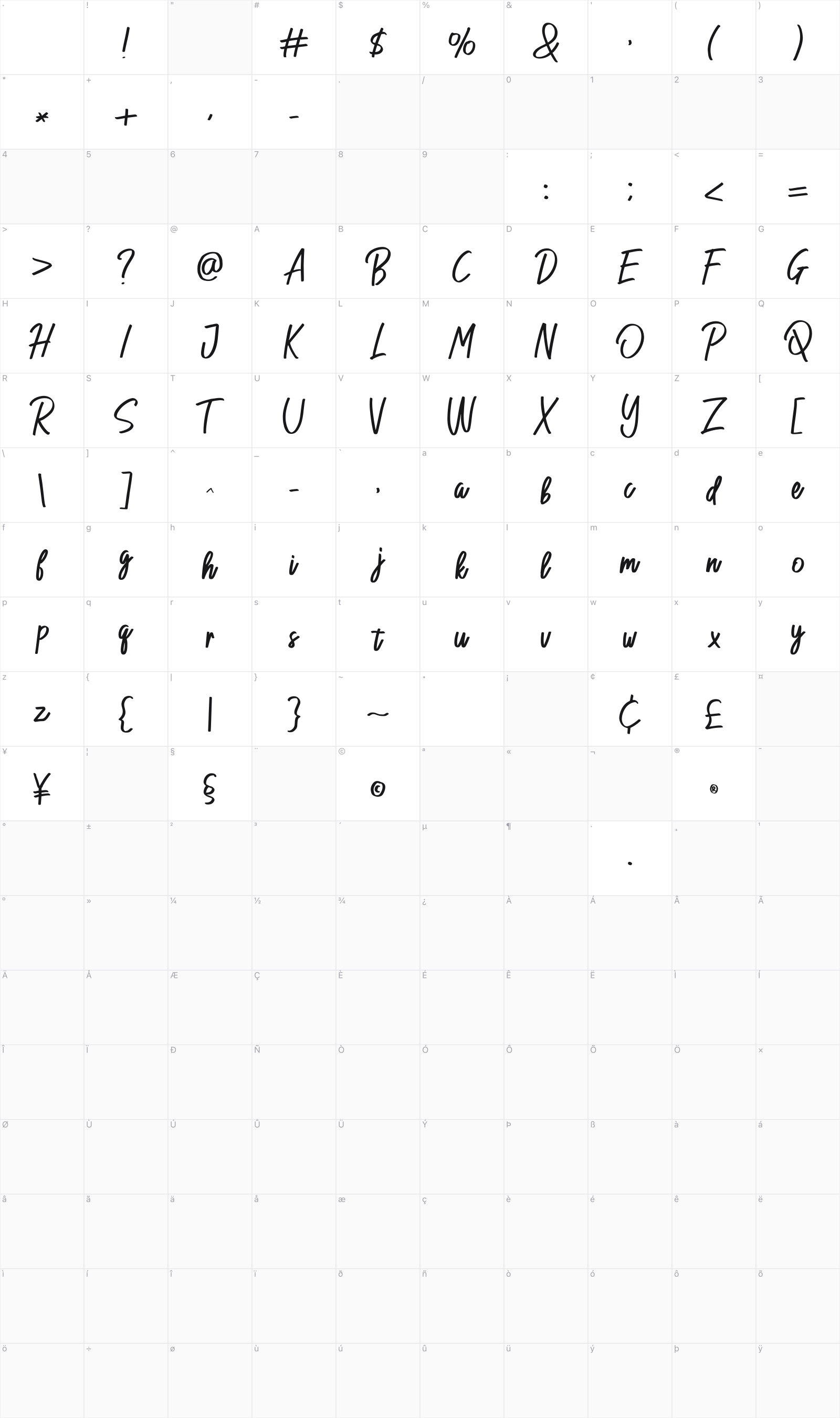
Neo Hestages
Neo Hestages is a bold brush typeface from Indotitas Squad with thick, energetic strokes that feel fast and loose, like someone swept a loaded brush across the page in one confident motion. The letterforms have a casual, handwritten quality but carry enough weight to hold their own at large sizes on posters, packaging, and event branding. There's a raw, physical energy to it that keeps things feeling spontaneous rather than polished.